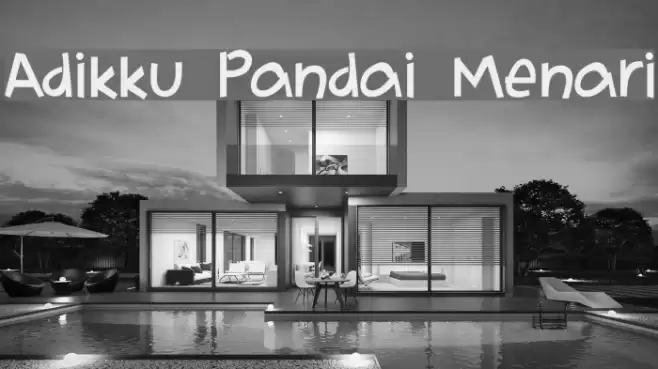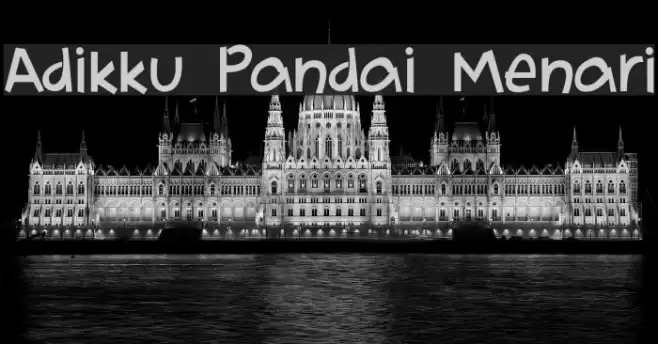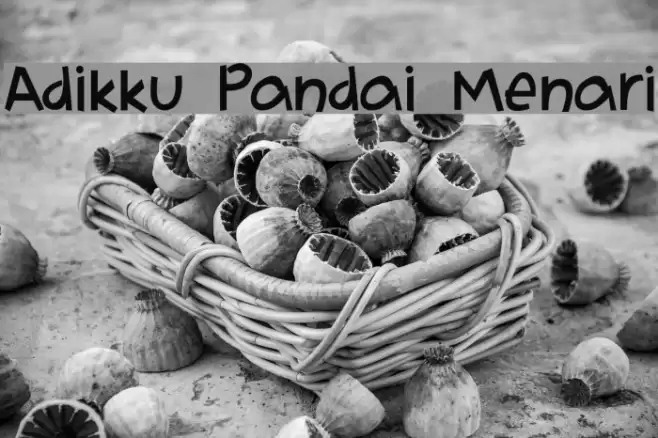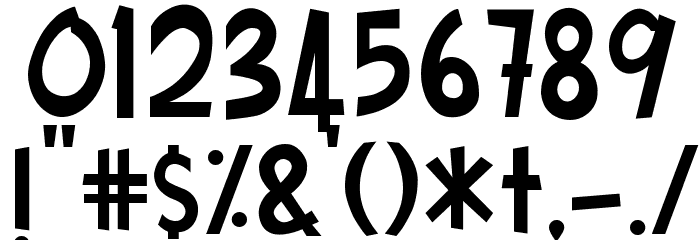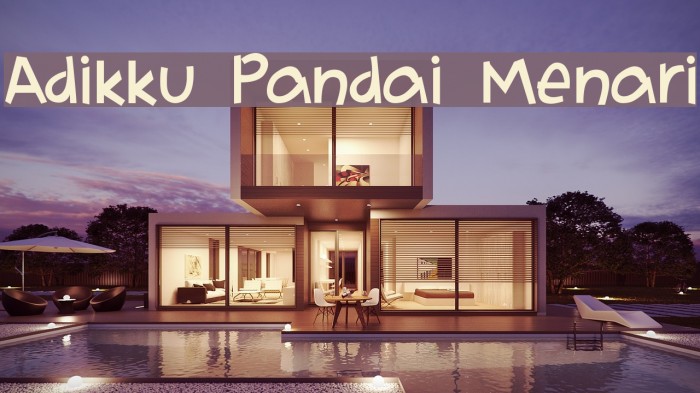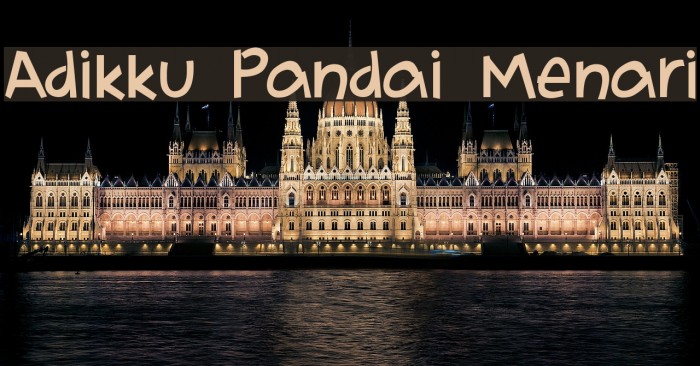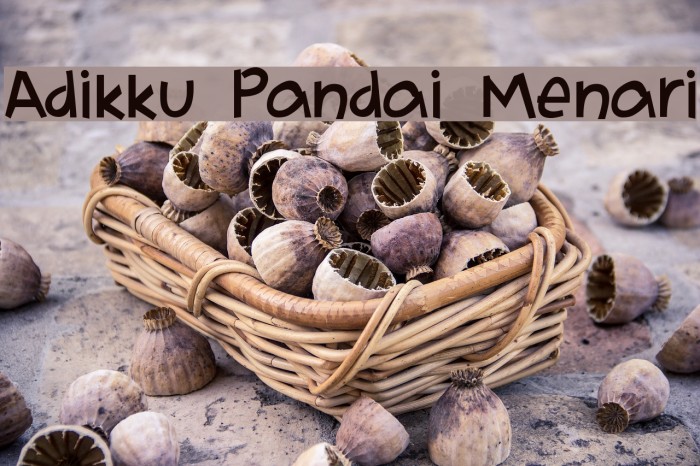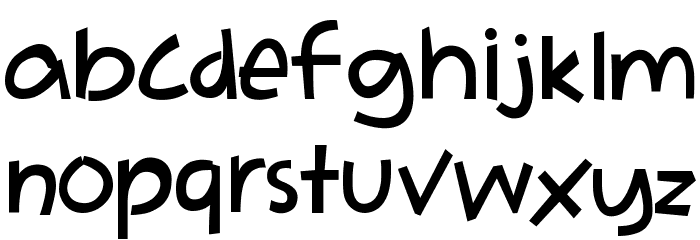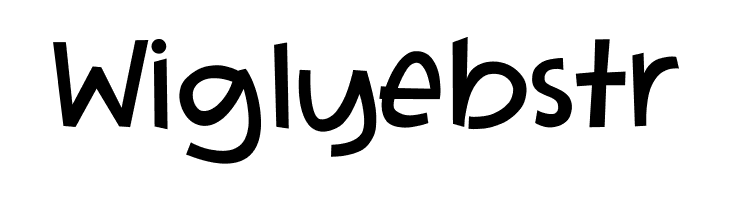
Adikku Pandai Menari Font
Adikku Pandai Menari Description
This playful and whimsical font features a hand-drawn aesthetic with irregular, slightly tilted characters that give it a lively and dynamic appearance. The uppercase and lowercase letters are bold and rounded, with a consistent stroke width that maintains readability while adding a touch of fun. The numbers and special characters follow the same style, ensuring a cohesive look across all text elements. Its unique character shapes and informal style make it ideal for projects that require a friendly and approachable feel.
A playful, hand-drawn font with bold, rounded characters and a whimsical style from Uncategorized fonts.
- Proposed Projects: Ideal for children's books, playful branding, casual invitations, and creative posters.